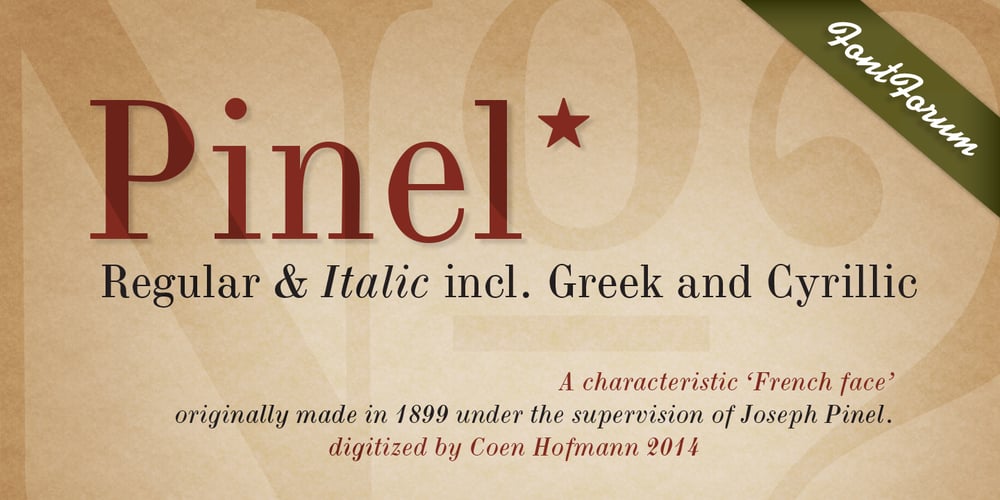
Pinel Pro Font Family was designed by Coen Hofmann and published by URW Type Foundry. Pinel Pro contains 2 styles and family package options. The characteristic ‘French face’ was originally made in 1899 under the supervision of Joseph Pinel. Thus, what was originally French 10 pt. Nº 2, got its present name. The Frenchman Joseph Pinel called himself a “typographical engineer”, but was at the time employed as a type draughtsman at the Linotype Works in Altrincham. It appears that this and some other faces that he supervised, were, except for use on the Linotype, also meant for manufacturing matrices for the Dyotype. This composing machine was an invention of Pinel. The Dyotype was a rather complicated machine and consisted, like the Monotype, of two separate contraptions, a keyboard which produced a perforated paper ribbon and a casting machine which produced justified lines of movable type. Unlike the Monotype which has a square matrix carrier, the Dyotype had the matrices on a drum (in fact two drums, hence the name of the machine). A Pinel Diotype company was founded in Paris and a machine was built with the help of the printing press manufacturer Jules Derriey. As is often the case, a lack of sufficient capital prevented the commercializing of this ingenious composing machine. Coen Hofmann digitized the font from a batch of very incomplete, damaged and musty drawings, which he dug up in Altrincham. He redrew all characters, bringing up the hairstrokes somewhat in the process. The result is a roman and italic, while the roman font also includes Small Caps